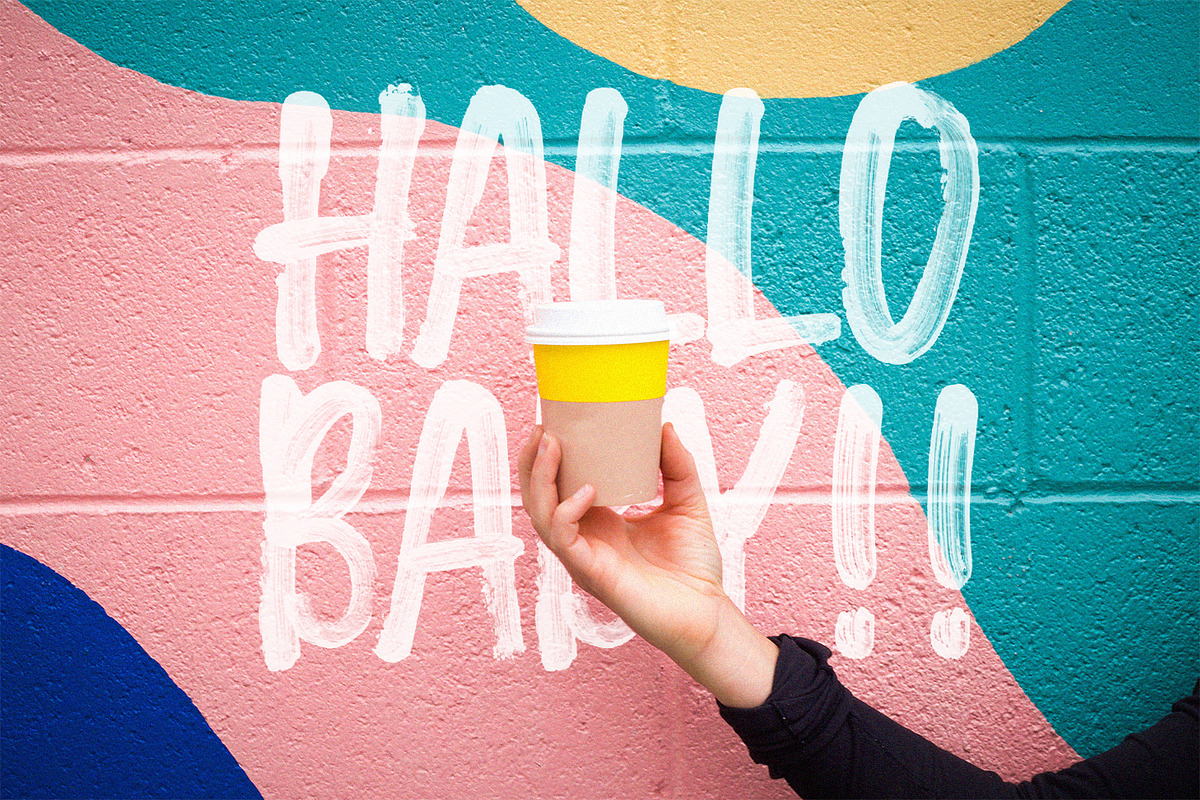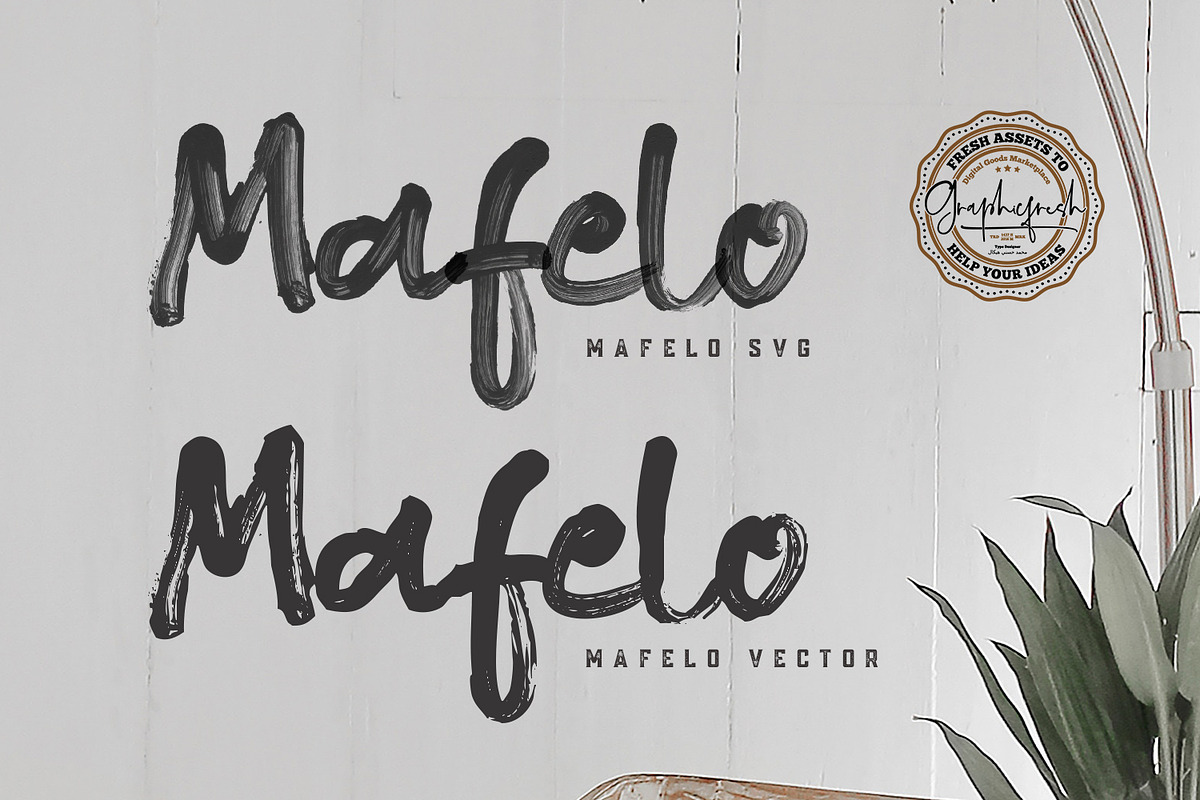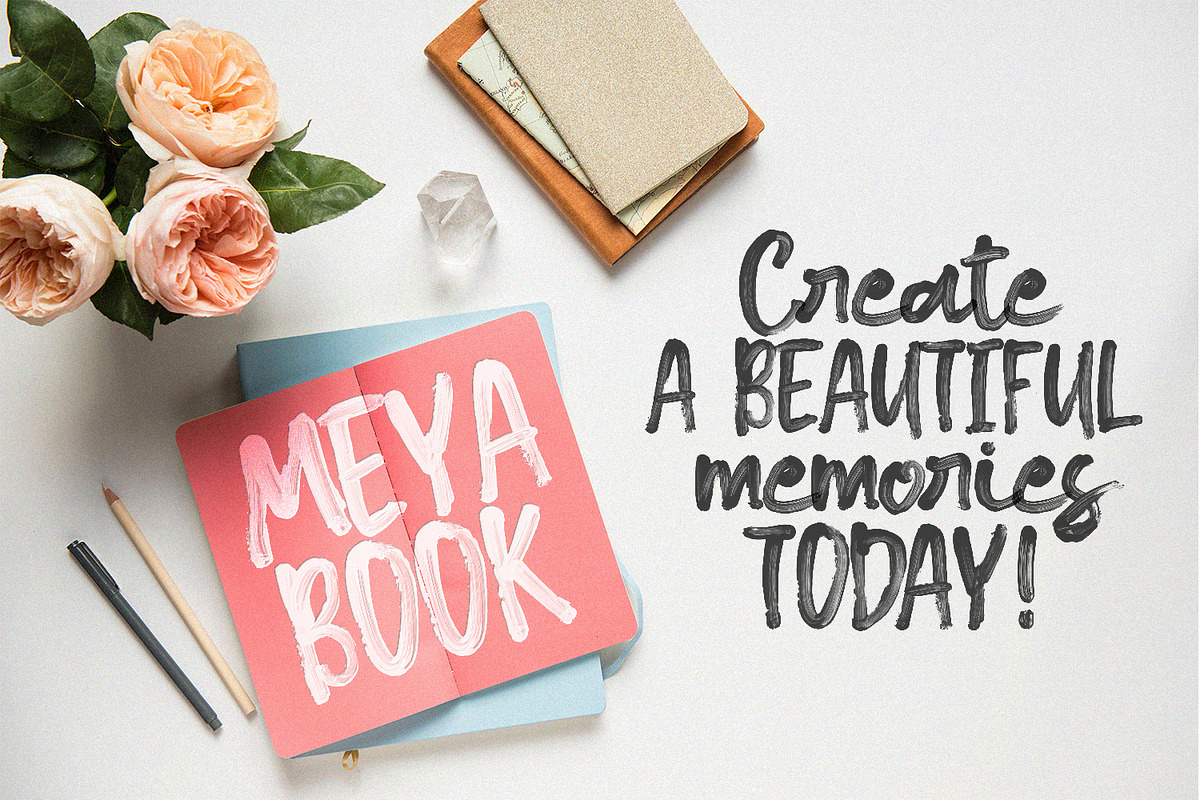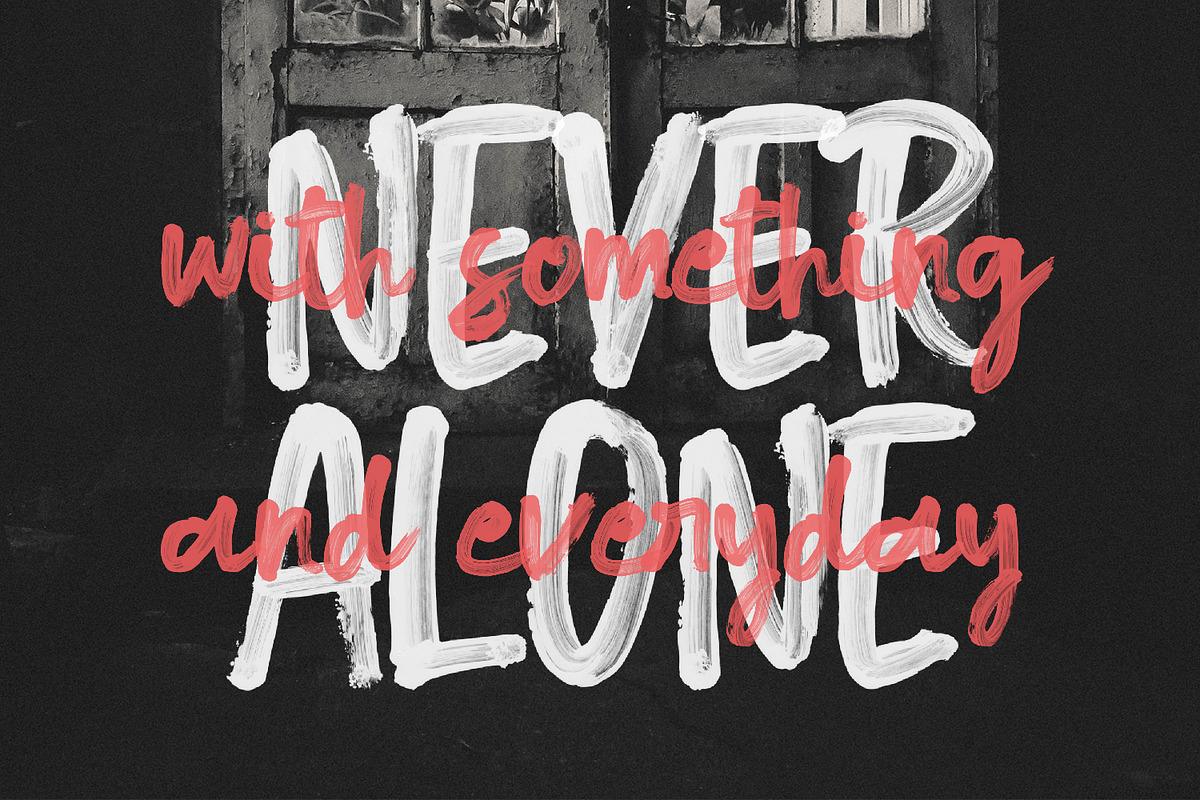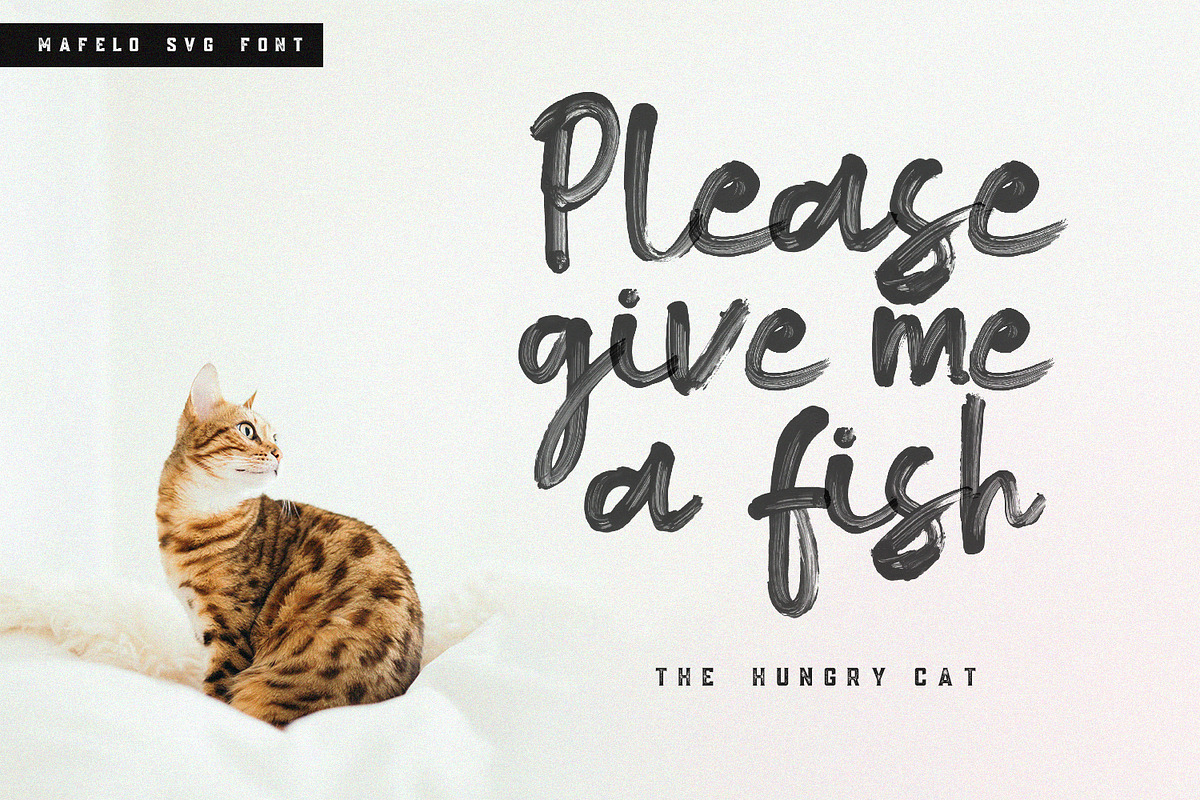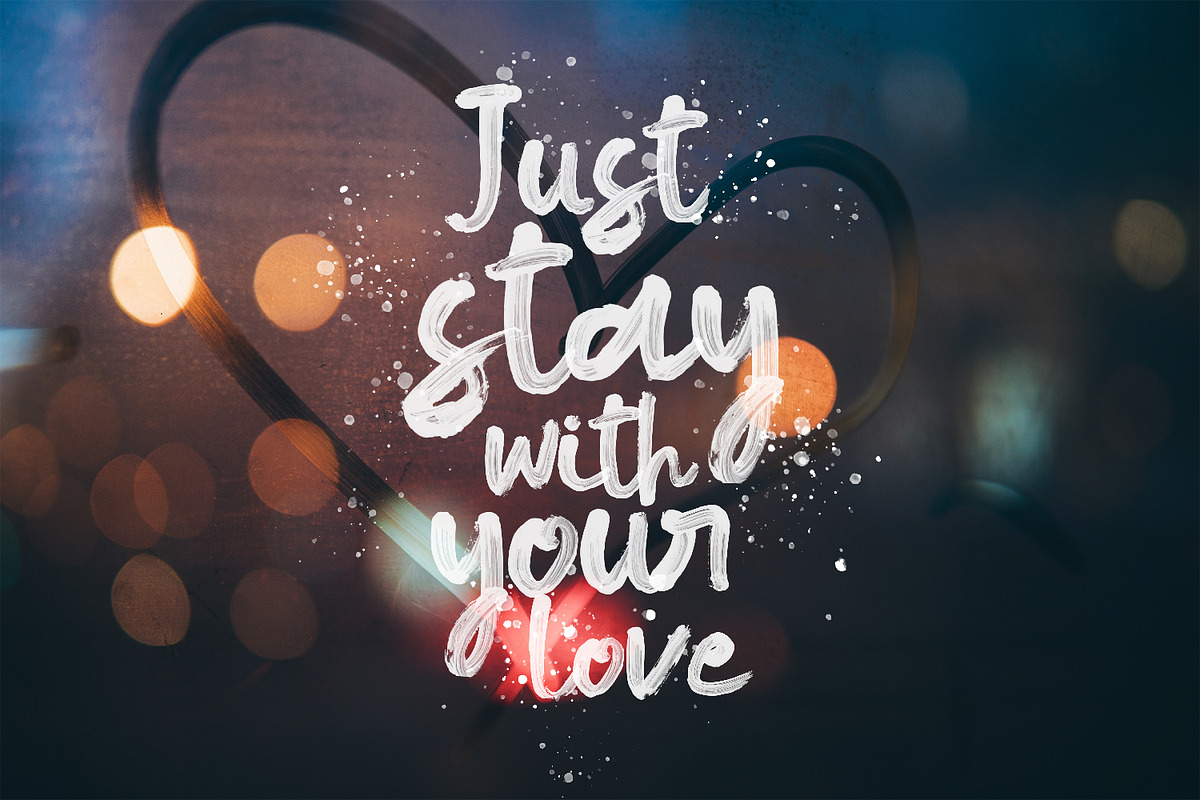
Mafelo SVG Font
Again and again. This time the paint streak is getting worse. So you are amazed to see it. This font I deliberately highlighted the feminine side. Hope you like it. It will be perfect for posters, packaging, advertisements, headlines, branding, signboards, and whatever else you want from an urban look and feel.